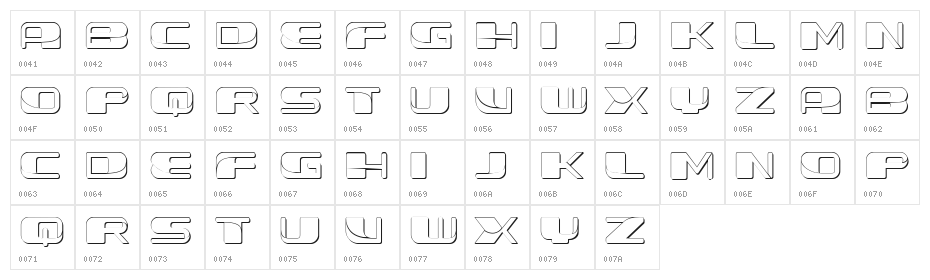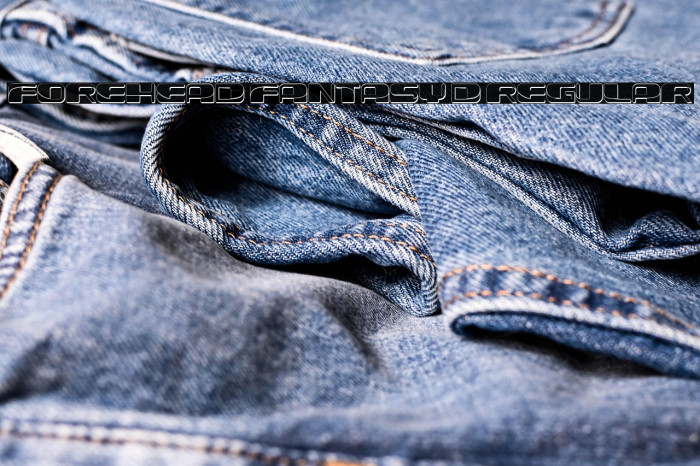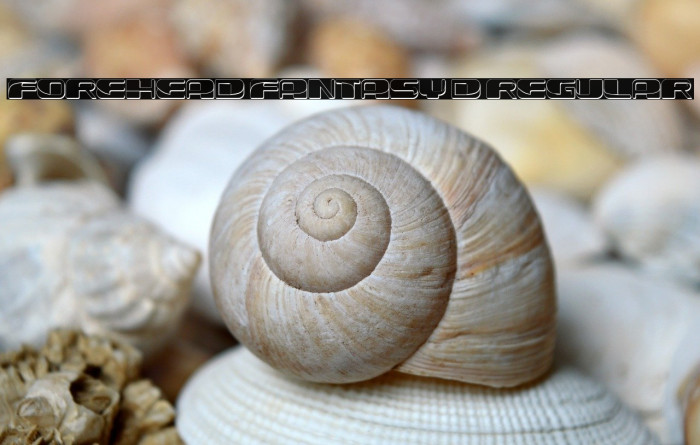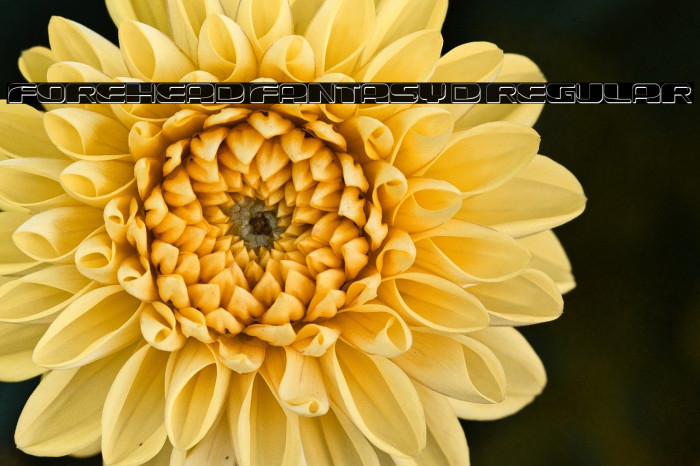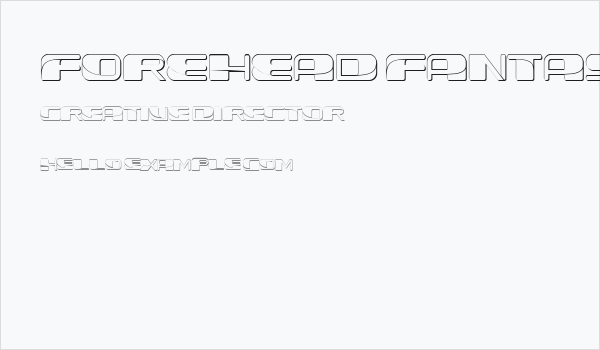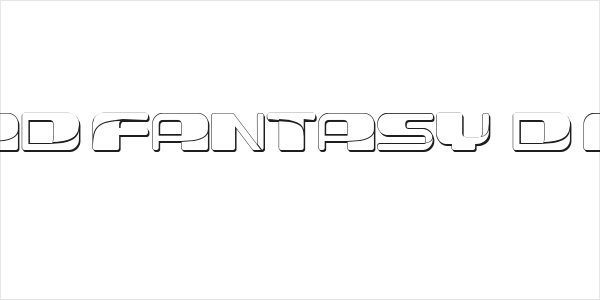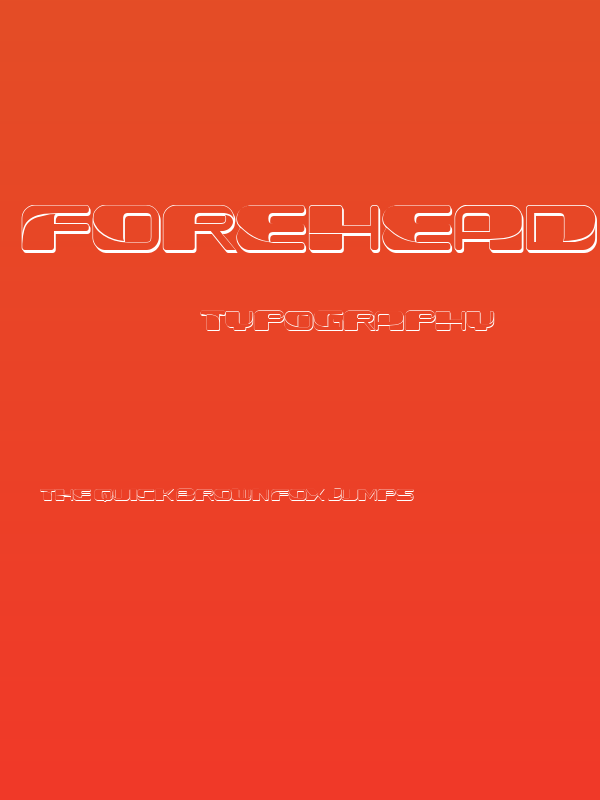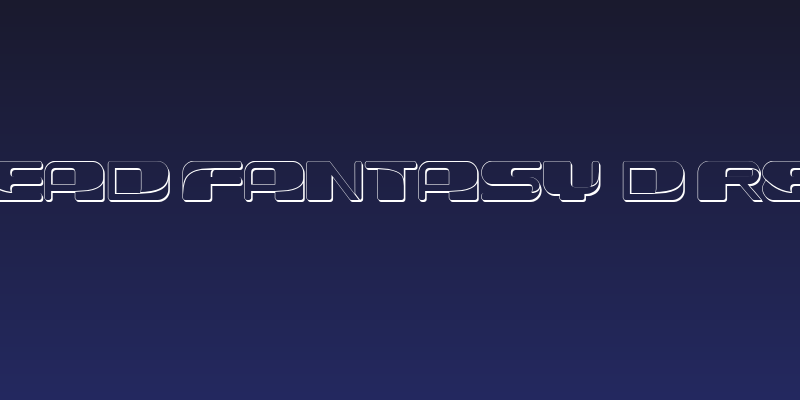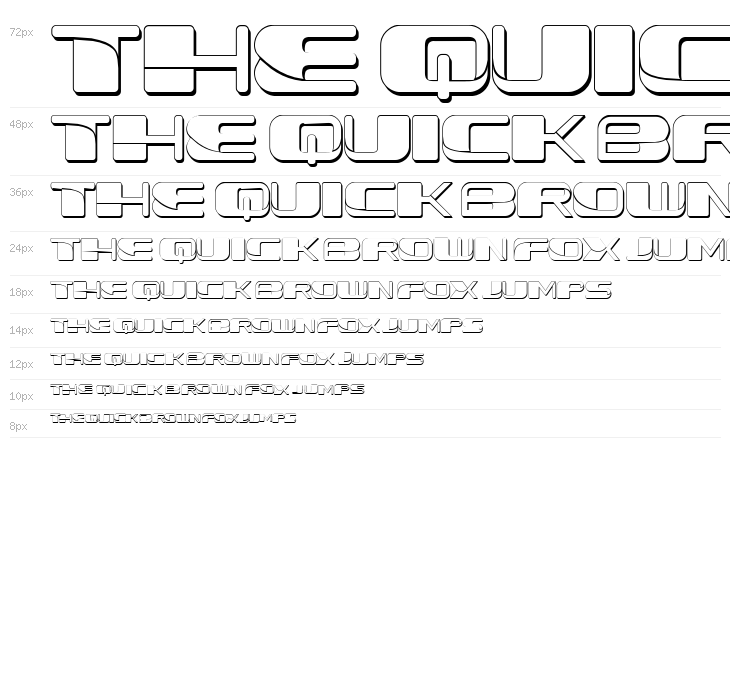
Forehead Fantasy 3D Regular Font
Forehead Fantasy 3D Regular Description
This font features a futuristic and geometric design with a 3D effect, giving it a unique and eye-catching appearance. The characters are constructed with bold lines and sharp angles, creating a sense of depth and dimension. The uppercase letters are particularly striking, with a consistent height and width that maintains a uniform look across the alphabet. The font's style is both modern and playful, making it suitable for creative projects that require a standout typeface. The spacing between characters is balanced, ensuring readability while maintaining its distinctive style.
| Proposed Projects | Ideal for sci-fi themed posters, video game titles, tech branding, and modern advertising campaigns. |